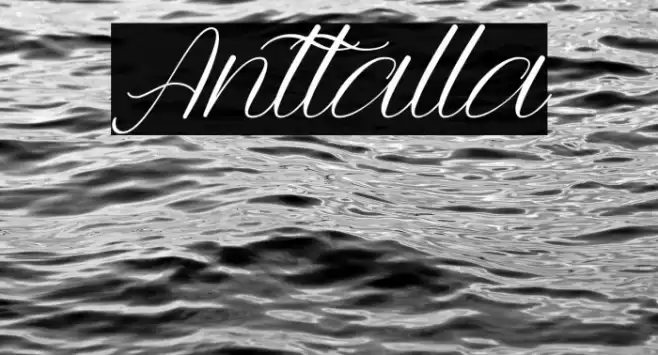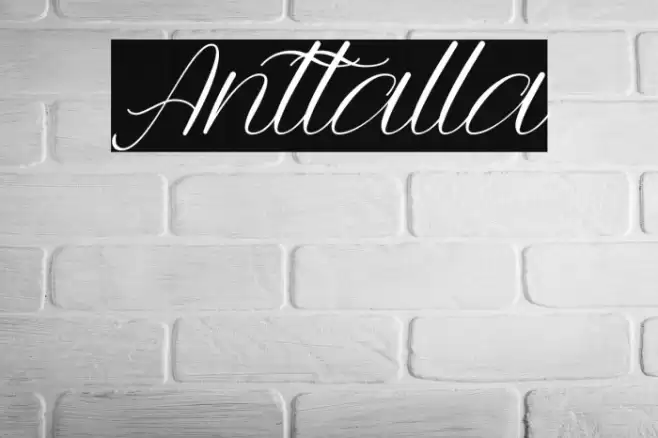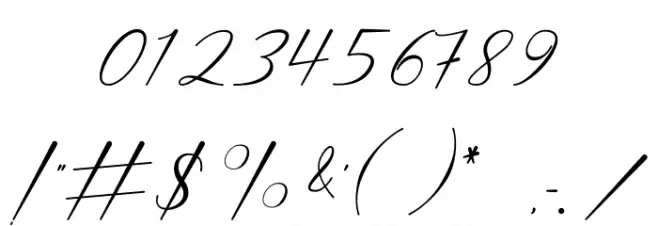
Anttalla Font
Anttalla Description
This elegant script font features flowing, interconnected characters that exude sophistication and grace. The uppercase letters are adorned with delicate flourishes, while the lowercase letters maintain a smooth, cursive style. The numerals are consistent with the overall script theme, offering a cohesive look. Special characters are thoughtfully designed to match the font's aesthetic, making it suitable for decorative purposes. The font's thin strokes and high contrast give it a refined appearance, ideal for formal invitations, branding, and elegant design projects.
A graceful script font with flowing, interconnected characters and elegant flourishes from Regular fonts.
- Proposed Projects: Ideal for wedding invitations, luxury branding, elegant stationery, and decorative design projects.
- Overall Style: Elegant
- Use Case: Logos, Invitations, Decorative text